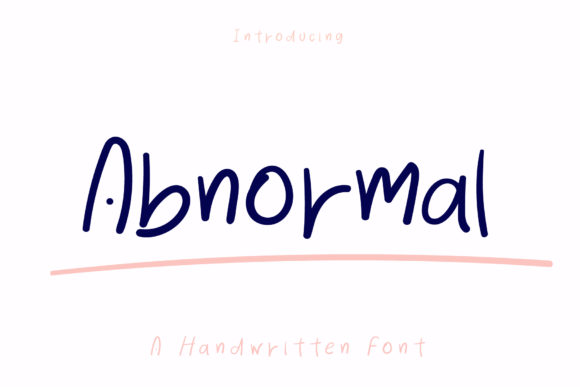
Introducing Abnormal Font: Add a Joyful Touch to Your Designs
Are you tired of using the same old fonts in your designs? Do you want to add a playful and quirky touch to your creative projects? Look no further than Abnormal Font, a cute and charming handwritten font that’s sure to make your designs stand out.
What is Abnormal Font?
Abnormal Font is a unique and creative handwritten font that’s perfect for designers and crafters who want to add a personal touch to their work. This font is characterized by its playful and irregular letterforms, which give it a charming and whimsical feel. Whether you’re working on a graphic design project, a crafting project, or a digital illustration, Abnormal Font is sure to add a joyful touch to your creations.
Features of Abnormal Font
- Handwritten style: Abnormal Font has a beautiful handwritten style that’s perfect for adding a personal touch to your designs.
- Playful and quirky: This font has a playful and quirky feel that’s sure to make your designs stand out.
- Unique letterforms: Abnormal Font features unique and irregular letterforms that give it a charming and whimsical feel.
Benefits of Using Abnormal Font
There are many benefits to using Abnormal Font in your designs. Here are a few:
- Adds a personal touch: Abnormal Font adds a personal touch to your designs, making them more unique and creative.
- Stand out from the crowd: This font is sure to make your designs stand out from the crowd, with its playful and quirky feel.
- Perfect for creative projects: Abnormal Font is perfect for creative projects, such as graphic design, crafting, and digital illustration.
- Easy to read: Despite its playful feel, Abnormal Font is easy to read, making it perfect for use in body text.
Examples of Abnormal Font in Use
Abnormal Font can be used in a variety of creative projects, such as:
- Graphic design: Use Abnormal Font in your graphic design projects, such as brochures, posters, and business cards.
- Crafting: Add Abnormal Font to your crafting projects, such as handmade cards, scrapbooking, and DIY signs.
- Digital illustration: Use Abnormal Font in your digital illustrations, such as digital art, comics, and cartoons.
Tips for Using Abnormal Font
Here are a few tips for using Abnormal Font:
- Use it sparingly: Abnormal Font is a bold and playful font, so use it sparingly to add emphasis to your designs.
- Pair it with other fonts: Pair Abnormal Font with other fonts to create a unique and interesting contrast.
- Experiment with colors: Experiment with different colors to find the perfect match for Abnormal Font.
Abnormal Font is a unique and creative handwritten font that’s perfect for designers and crafters who want to add a playful and quirky touch to their designs. With its playful and irregular letterforms, this font is sure to make your designs stand out. Whether you’re working on a graphic design project, a crafting project, or a digital illustration, Abnormal Font is a great choice. So why not give it a try and add a joyful touch to your designs?